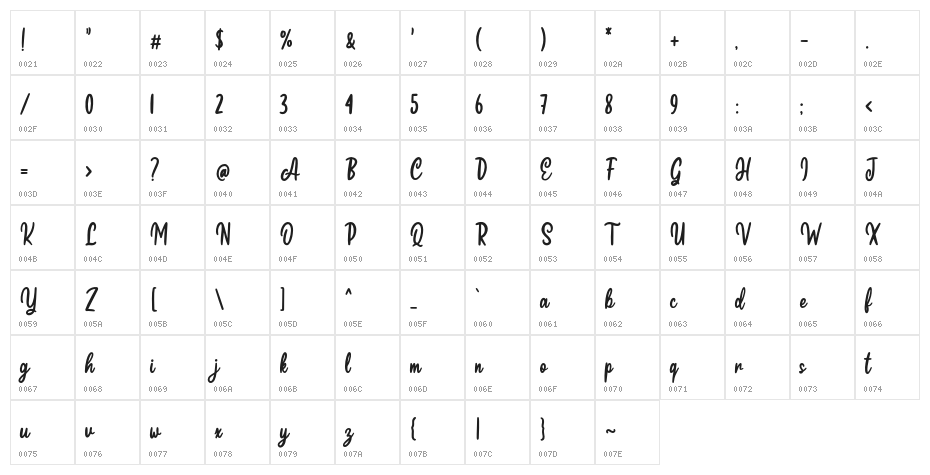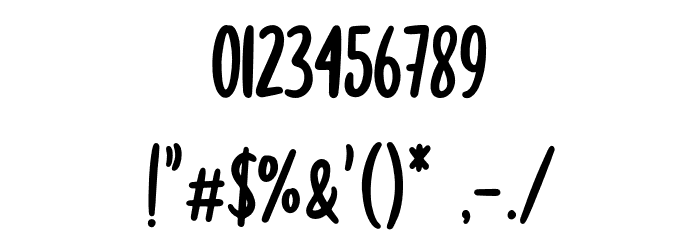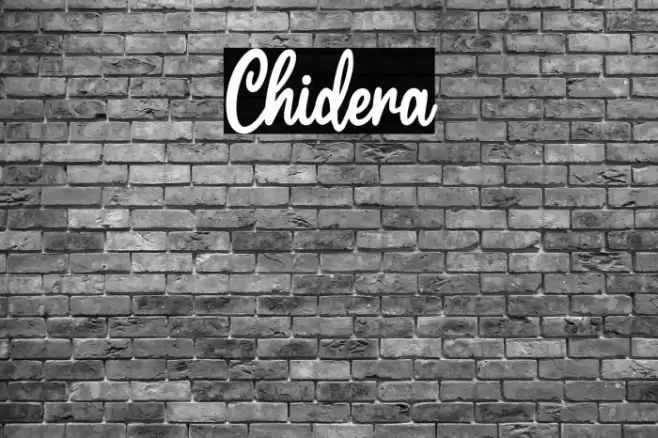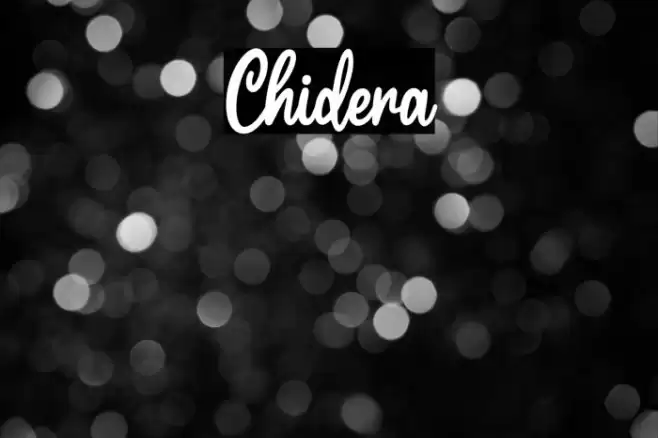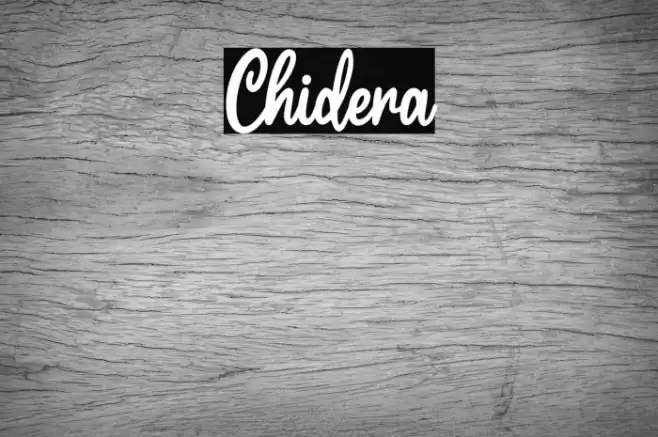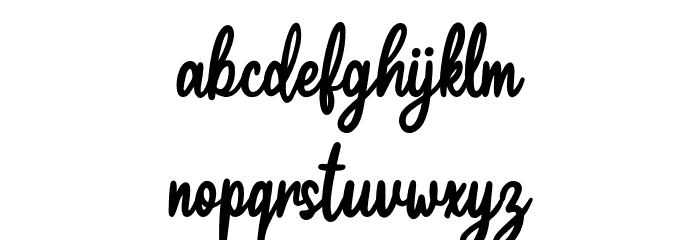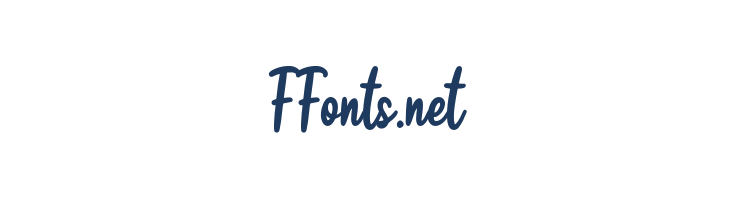
Chidera Font
Chidera Description
This font features a playful and energetic script style with smooth, flowing lines and a handwritten feel. The uppercase letters are bold and slightly slanted, giving a sense of movement and dynamism. The lowercase letters maintain a consistent style, with rounded edges and a casual, friendly appearance. The numbers and special characters are designed to match the overall aesthetic, ensuring a cohesive look across all text. This font is ideal for projects that require a personal touch, such as invitations, greeting cards, or branding materials that aim to convey warmth and approachability.
| Proposed Projects | Ideal for invitations, greeting cards, personal branding, and playful designs. |